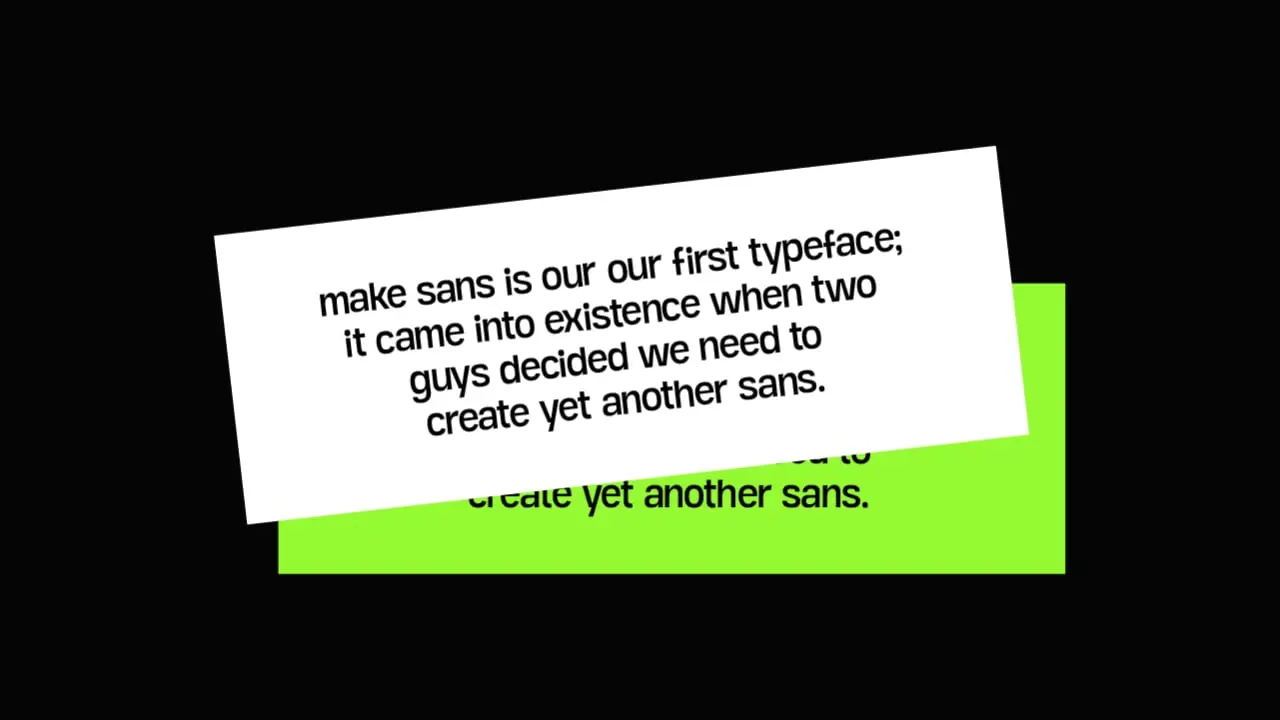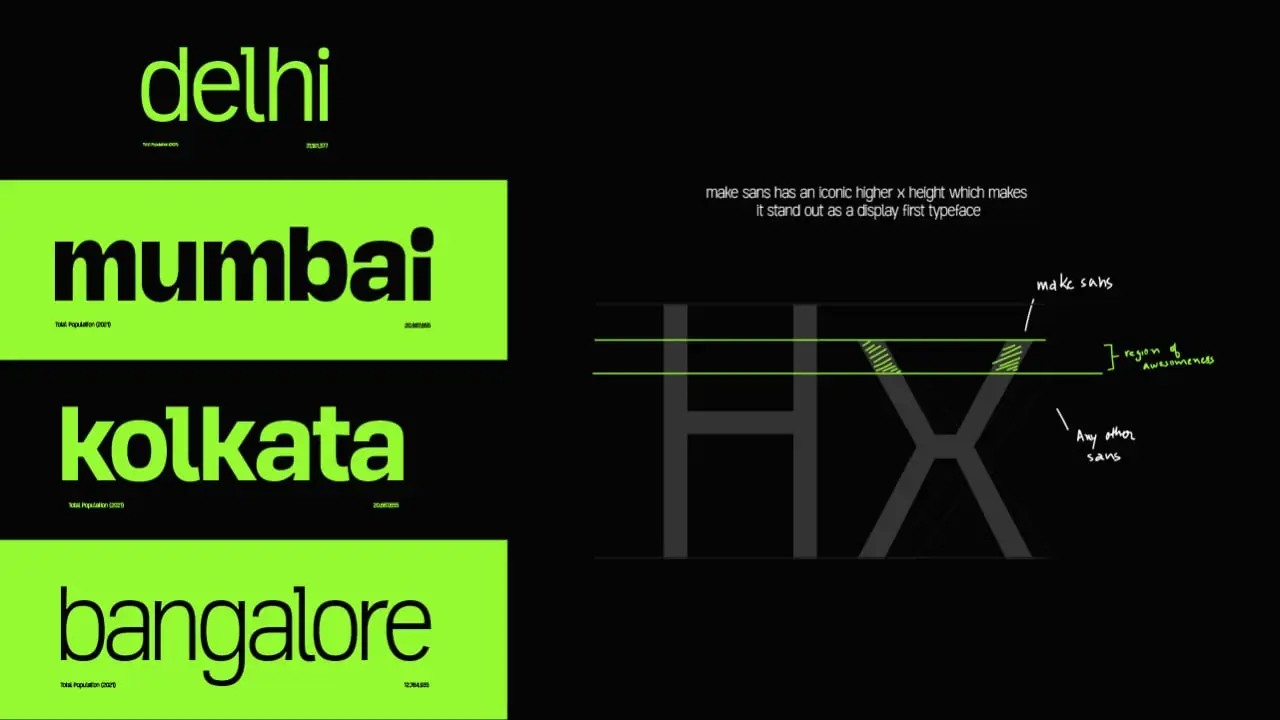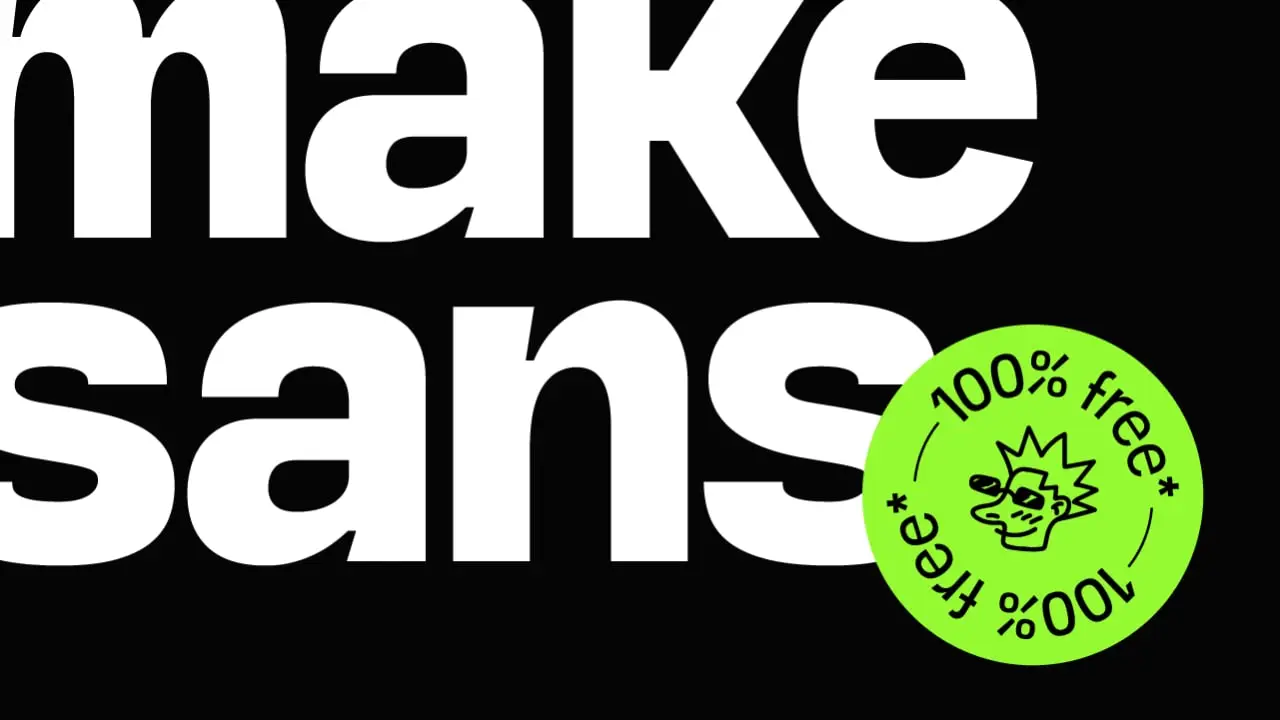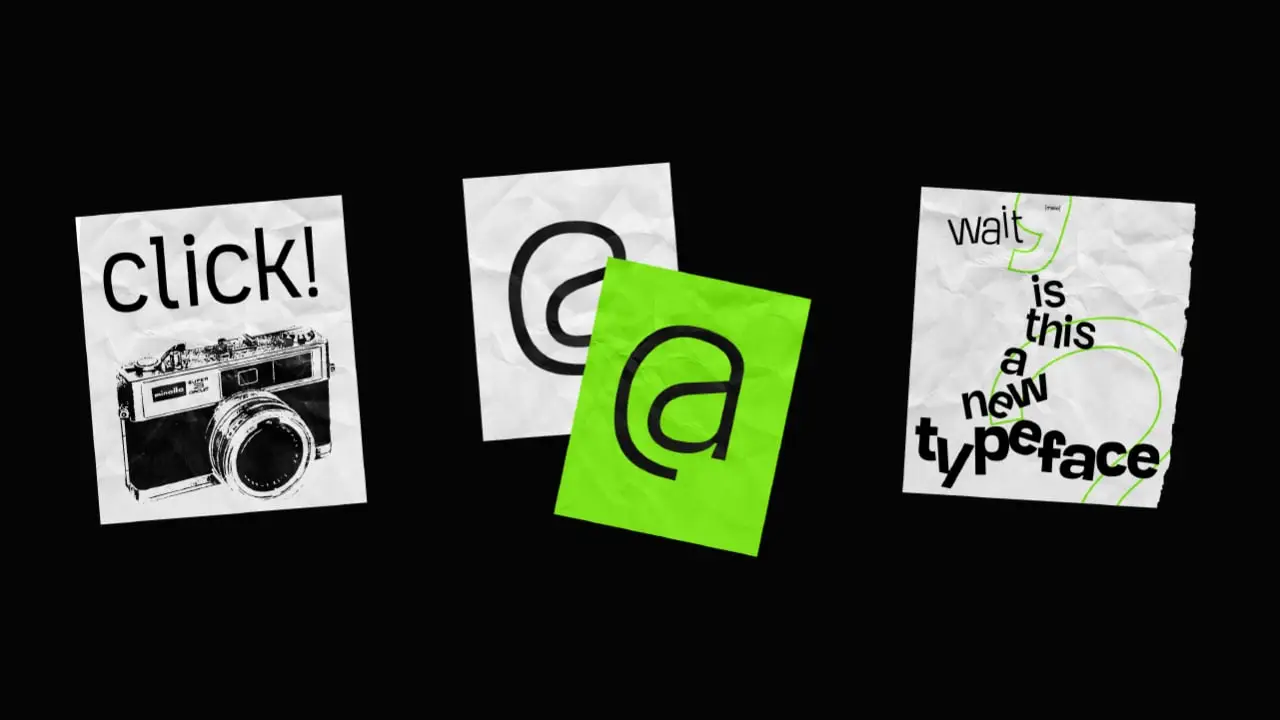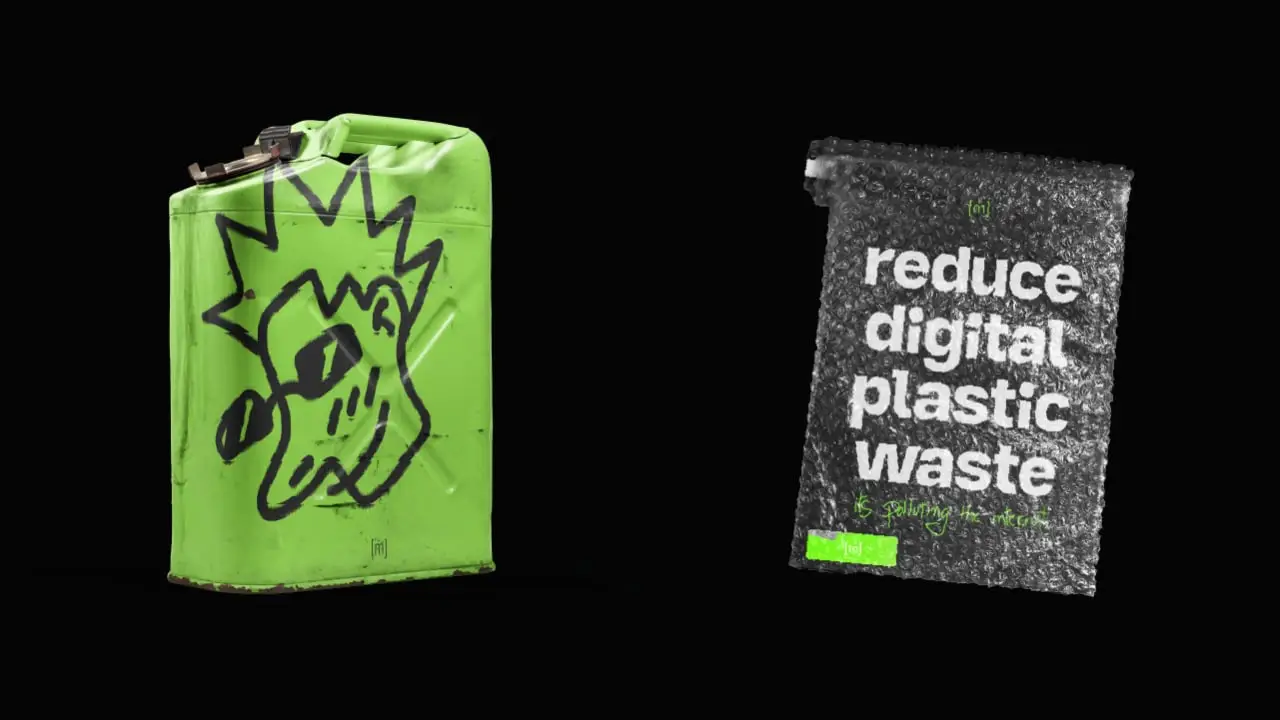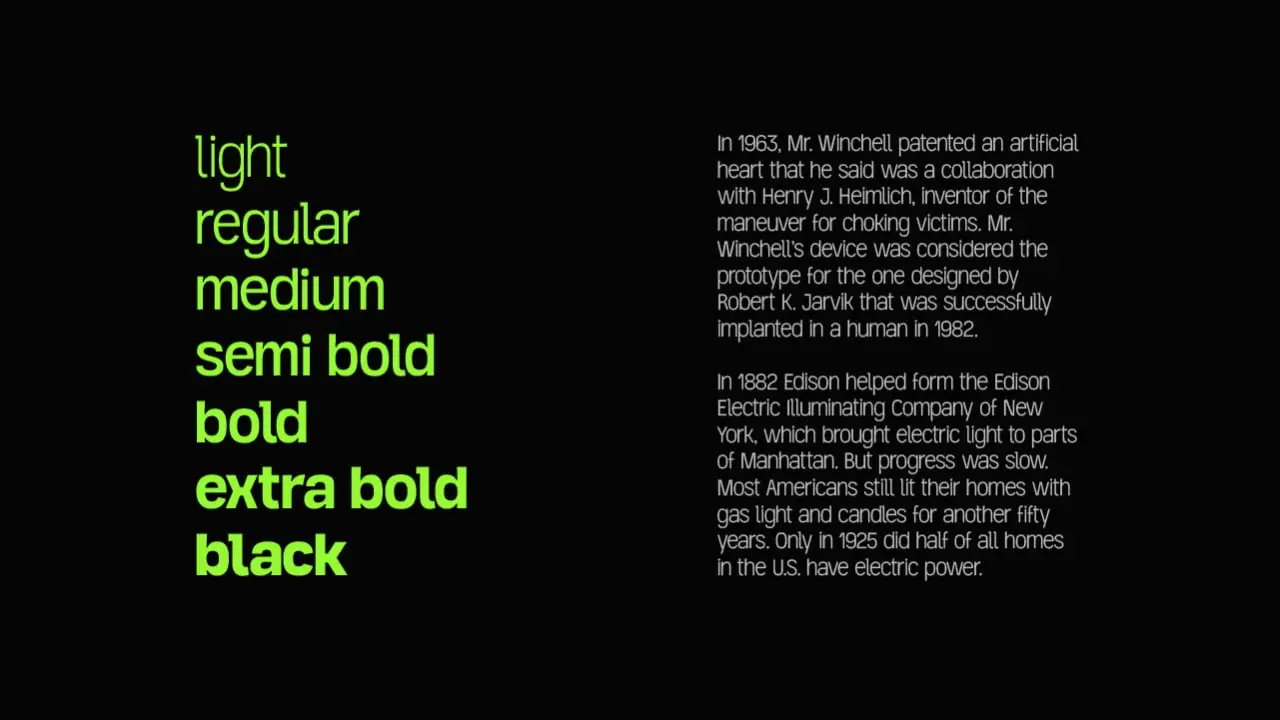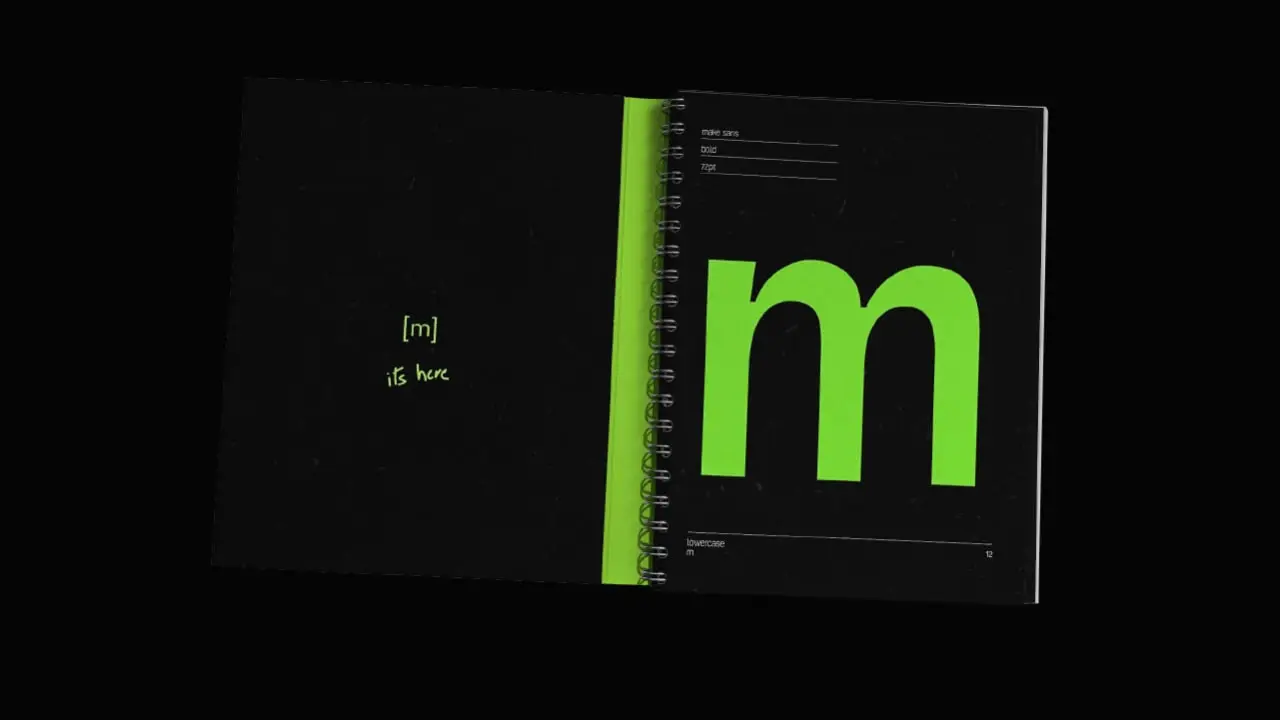
Make Sans: A Display First Typeface
Introducing Make Sans, our very first typeface designed with a focus on display use. Born from the collaboration of two passionate designers, this sans serif typeface brings a unique blend of personality and quirks, ensuring it stands out in any project.
Make Sans is crafted to be more than just a font; it’s a statement. Perfect for headlines, posters, and any design requiring a touch of character, this typeface is ideal for creatives looking to make an impact.
- ✅ Unique Character Set → Offers a distinctive look that sets your designs apart.
- ✅ Easy to Read → Designed for clarity, even at larger sizes.
Why Choose Make Sans?
Make Sans is not just another font; it’s a carefully crafted typeface that adds flair to your designs. With its playful personality, it’s trusted by designers worldwide to enhance their creative projects. Whether you’re working on a branding project, a website, or promotional materials, Make Sans delivers a fresh and engaging aesthetic.